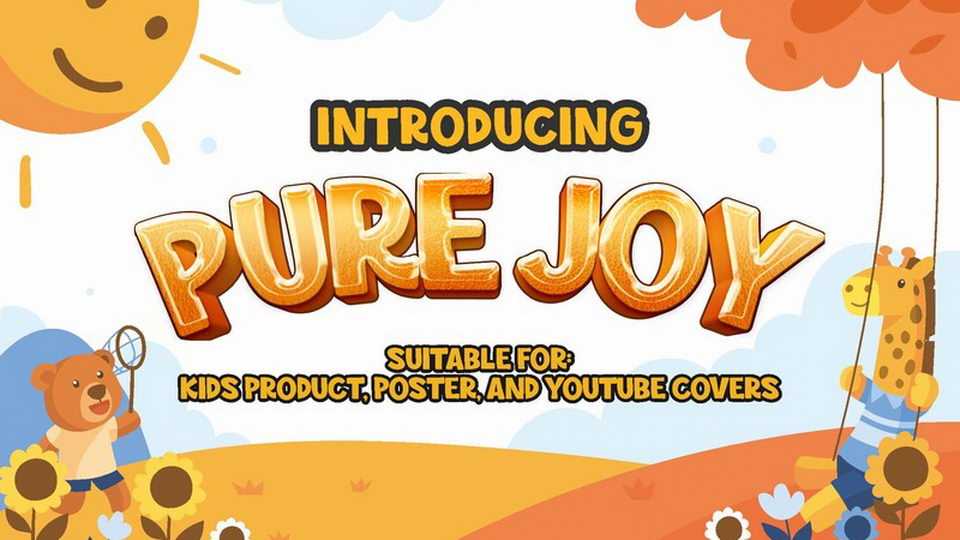
Download Pure Joy font, a typeface spreading happiness in the purest thing ever. With bold stem and rounded corner, Pure Joy sure thing will make your message came across without being worry of missing out in the store self.